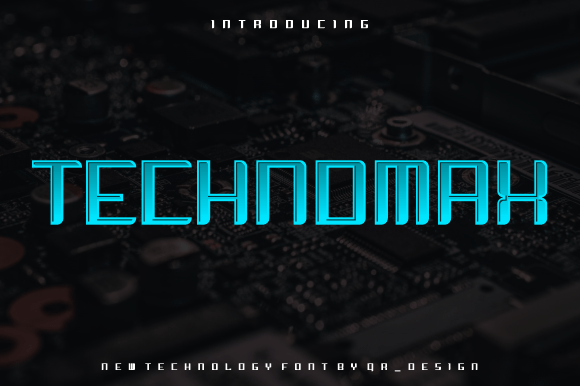
Introducing Technomax Font – The Gateway to Gaming Dominance and Limitless Creativity
Prepare yourself to be captivated by Technomax Font, a daring and distinctive display font that will revolutionize your gaming website and unlock a world of boundless creative possibilities. This powerful sans serif font commands attention with its bold strokes and unapologetic personality, leaving an indelible mark on any project it graces.
Unleash the True Essence of Gaming with Technomax Font
In the realm of gaming, immersion is everything. Technomax Font embodies this philosophy, effortlessly transporting users into the heart of the action. Its sharp angles and dynamic curves evoke a sense of urgency and excitement, propelling players to new heights of engagement. Whether crafting a captivating logo, designing visually stunning t-shirts, or creating an electrifying esport experience, Technomax Font serves as your ultimate weapon to conquer the gaming landscape.
Embark on a Creative Odyssey with Technomax Font
Step beyond the boundaries of gaming and explore the limitless creative horizons that await you with Technomax Font. Its versatility knows no bounds, adapting effortlessly to a myriad of branding projects. Envision your designs taking center stage, whether it's a striking logo that leaves a lasting impression, a t-shirt design that sparks conversations, or a captivating poster that demands attention. Technomax Font empowers you to craft a visual symphony that resonates with your audience, leaving them in awe of your creative prowess.
Beyond Boundaries: Technomax Font's Universal Appeal
Technomax Font's allure transcends the confines of gaming and branding. Its captivating presence shines brightly in a diverse array of contexts. Unleash your imagination and weave Technomax Font's magic into presentations that command attention, social media posts that ignite engagement, and marketing materials that drive conversions. This font is your passport to a world where creativity knows no limits.